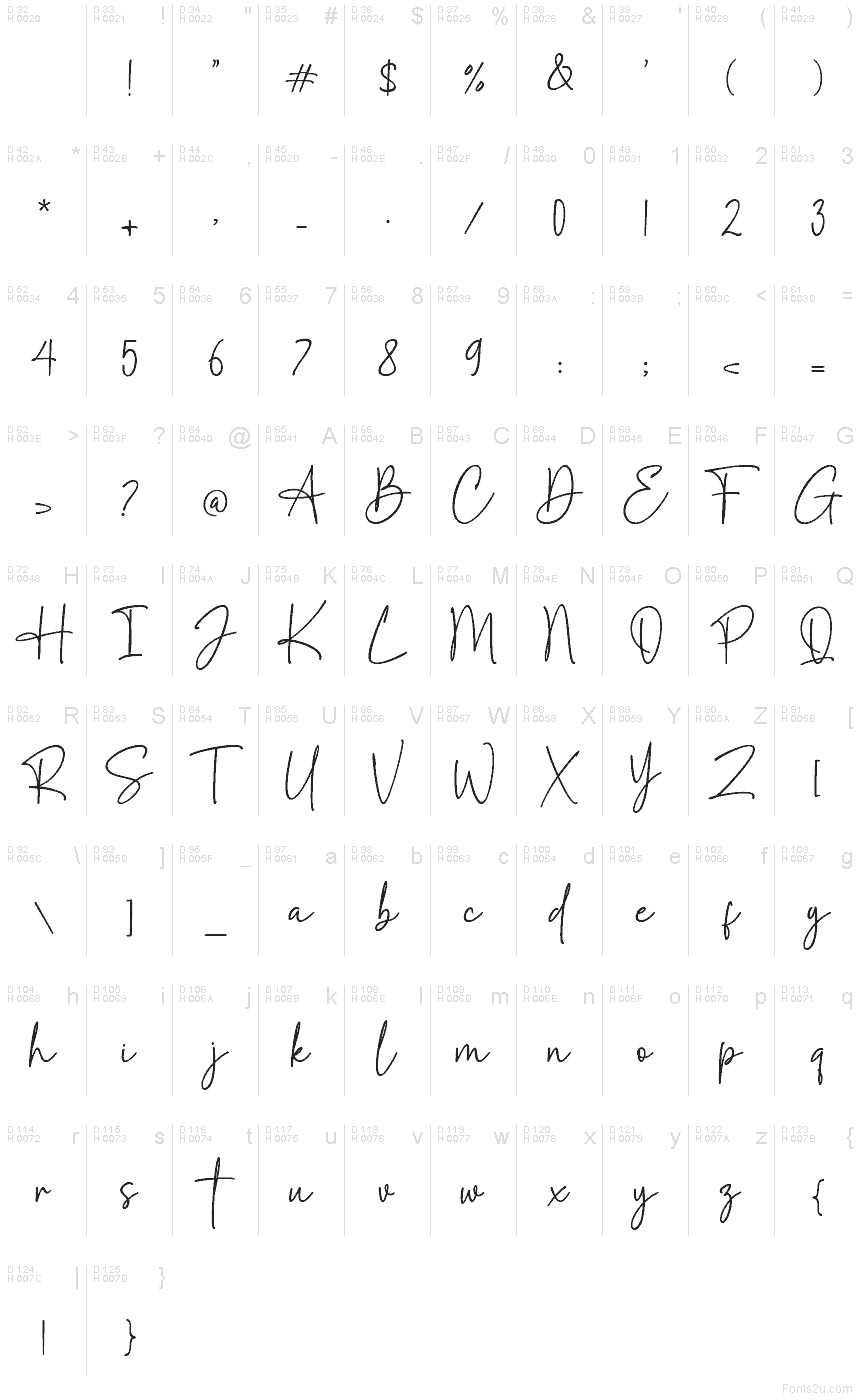
Ashley Southine Demo
Ashley Southine font by MJB Letters effortlessly takes individuals on a journey with its light weight, expressive natural flow, and other elegant features. The free handwritten font finds the perfect balance between vibrance and clarity; thus making its characters readable without giving up on style.
Use it in event invitations such as wedding ones, special package designs, clothing items labels, branding tasks, books’ covers and inside pages, direct quotes in magazines or posters.